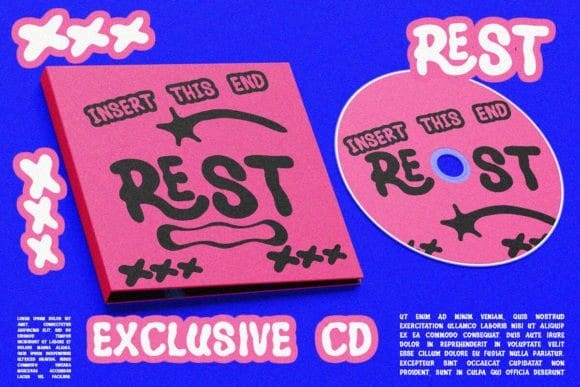
Sharine Display Font
Sharine Display Font. This font has bold, retro, cute and dynamic characters that are perfect for creating a retro-futuristic-experimental vibe in your design. Sharine will be perfect for posters, packaging, invitations, branding, social media posts, headlines, and other designs.